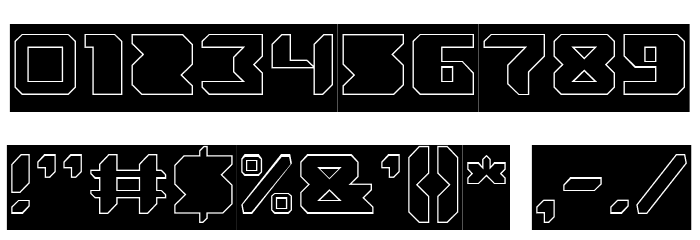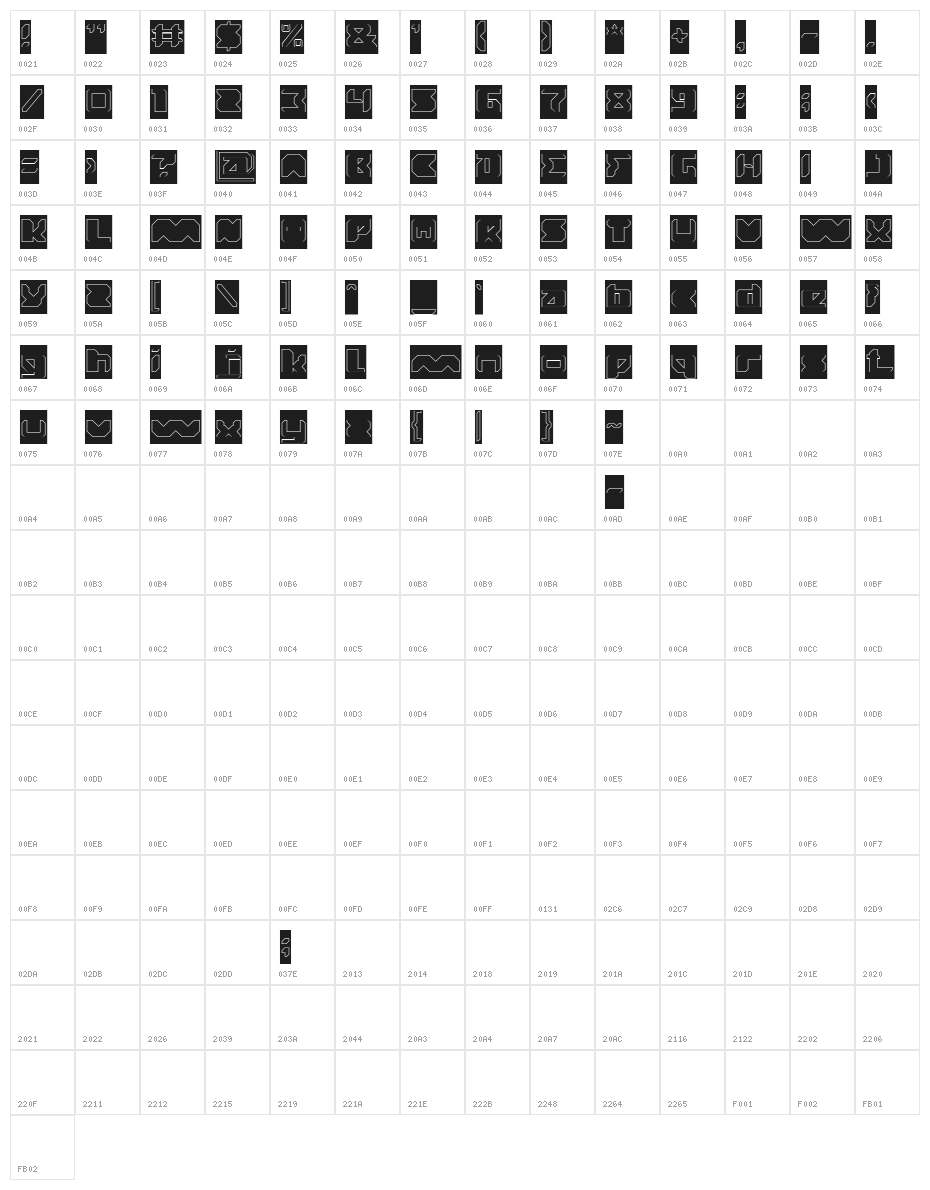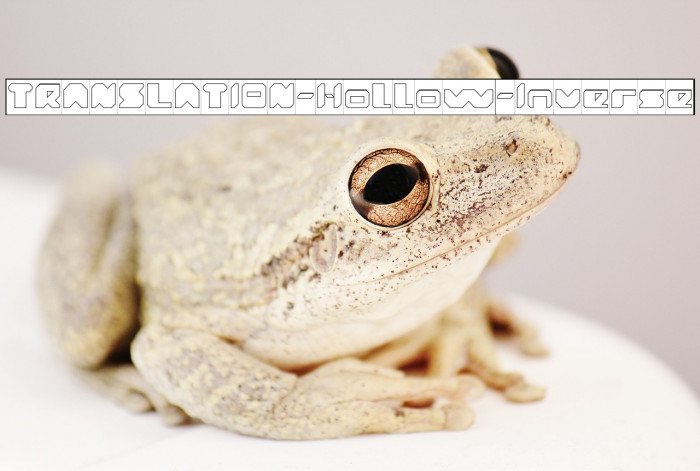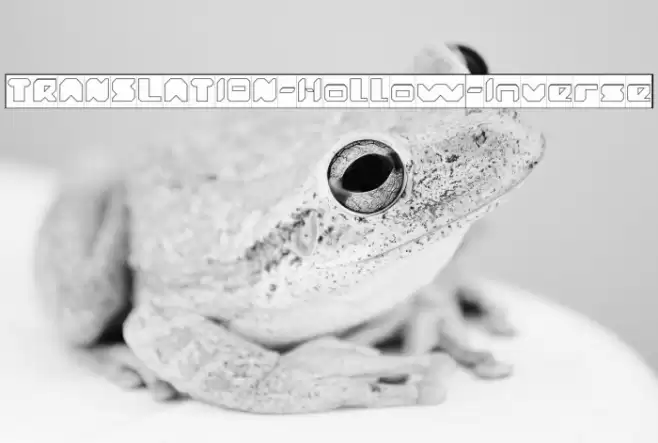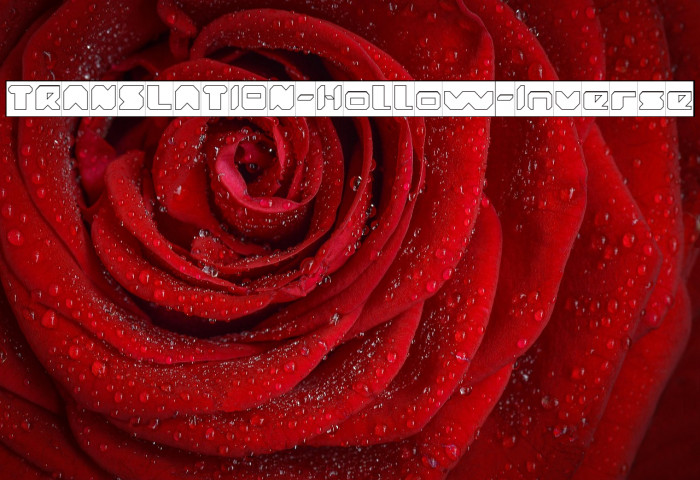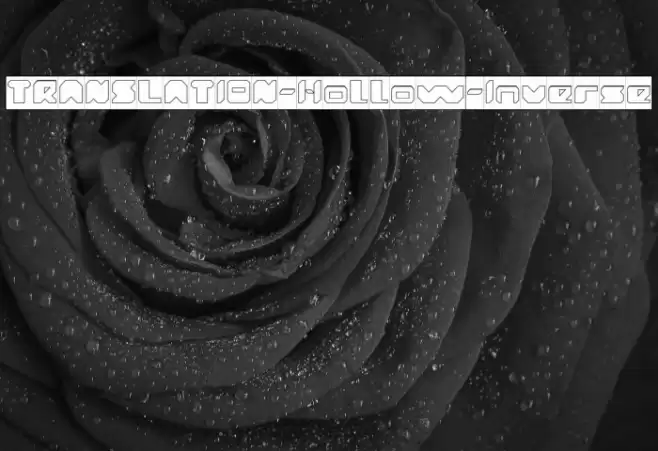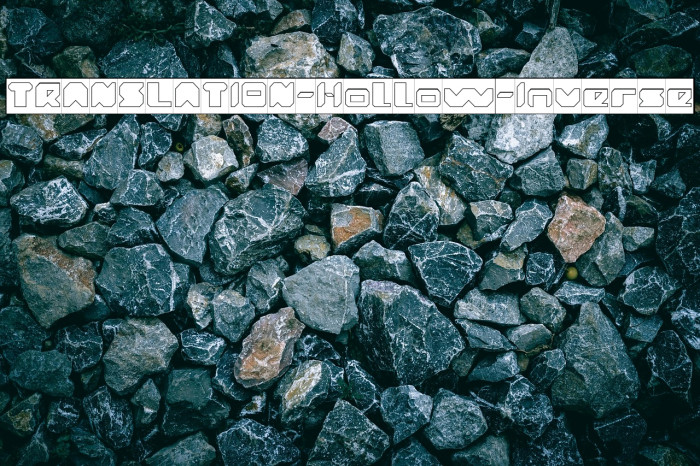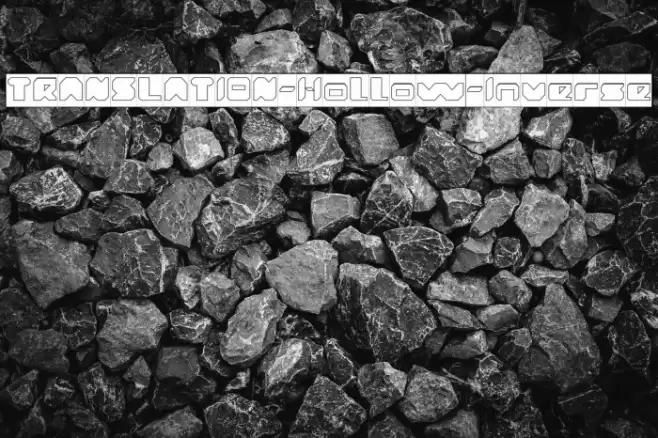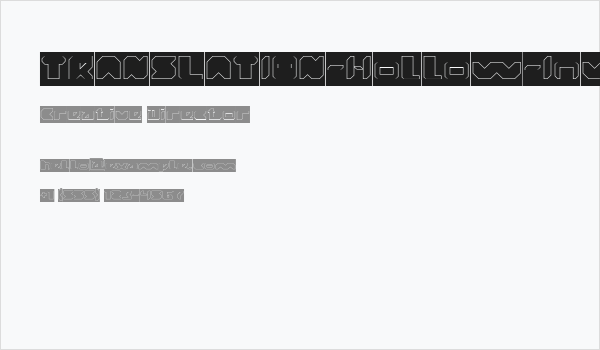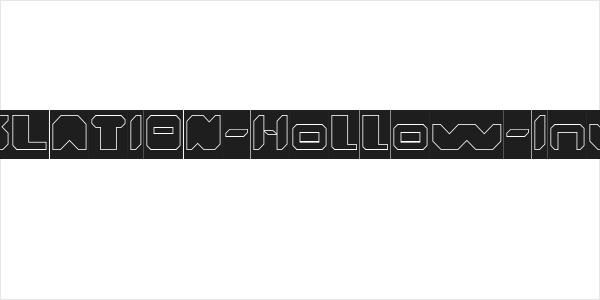
TRANSLATION-Hollow-Inverse Font
TRANSLATION-Hollow-Inverse Description
This font features a unique hollow design with an inverse style, creating a striking visual effect. The characters are outlined with a bold, geometric structure, giving them a futuristic and digital appearance. The uppercase and lowercase letters maintain a consistent style, with sharp angles and clean lines. Numbers and special characters are designed to match the overall aesthetic, ensuring uniformity across all glyphs. The font's distinct look makes it ideal for projects that require a modern and edgy feel.
Overall StyleFuturistic
Proposed ProjectsIdeal for digital art, tech branding, video game titles, and sci-fi themed designs.